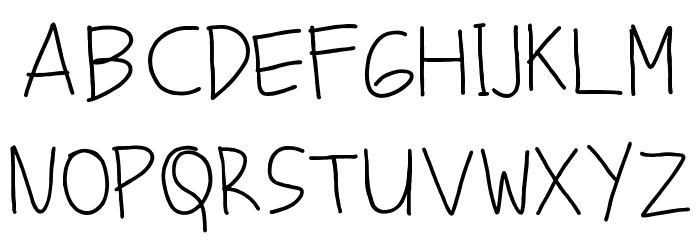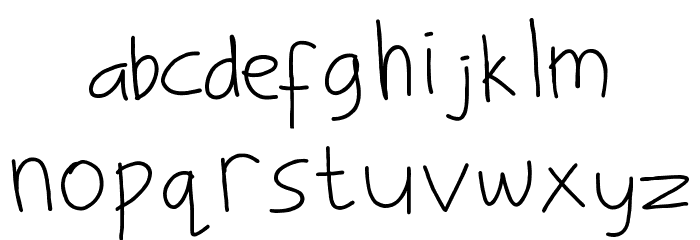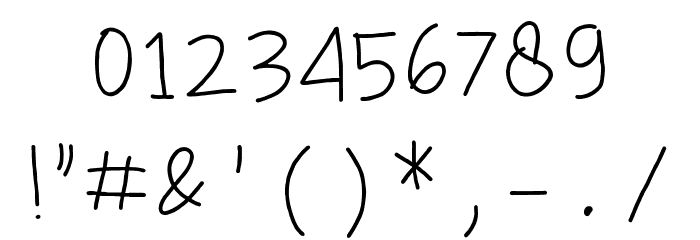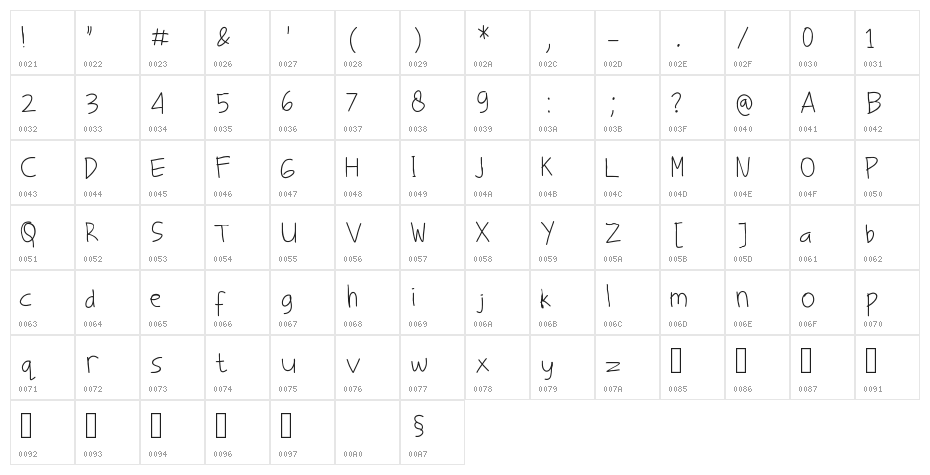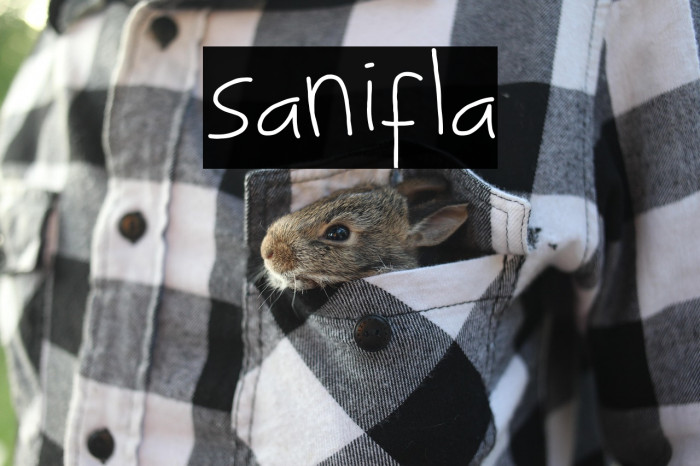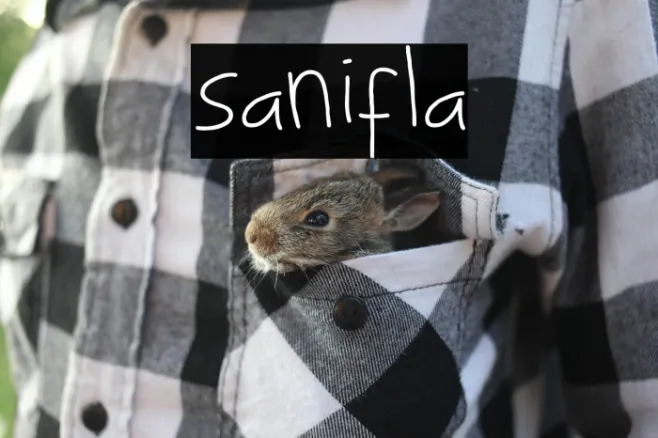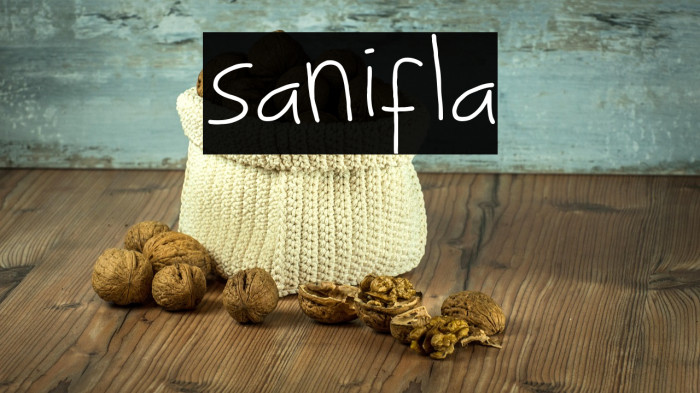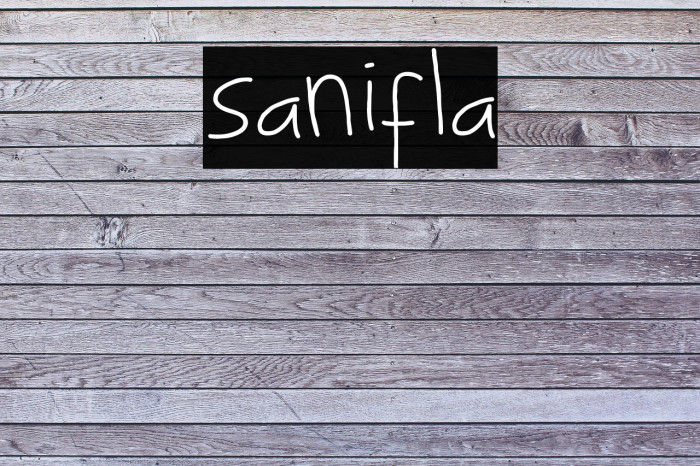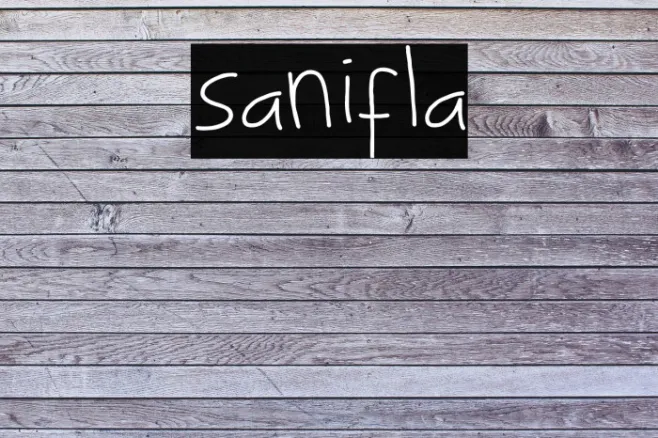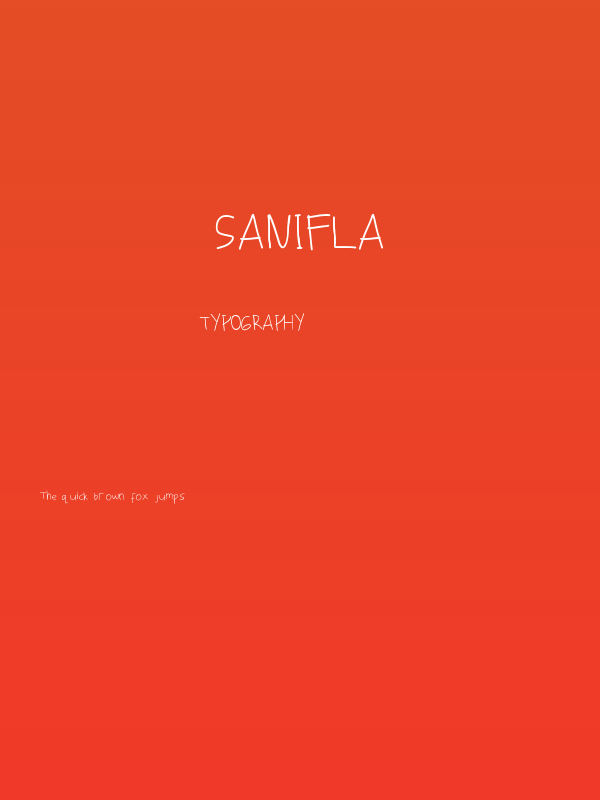
sanifla Font
A casual, handwritten font with a playful and informal style, featuring irregular strokes and a natural flow.
Casual handwritten font with playful style.
- Proposed Projects: Greeting cards, informal invitations, children's books.
- Category: Handwritten
- Overall Style: Casual
- Use Case: Informal text, personal notes.